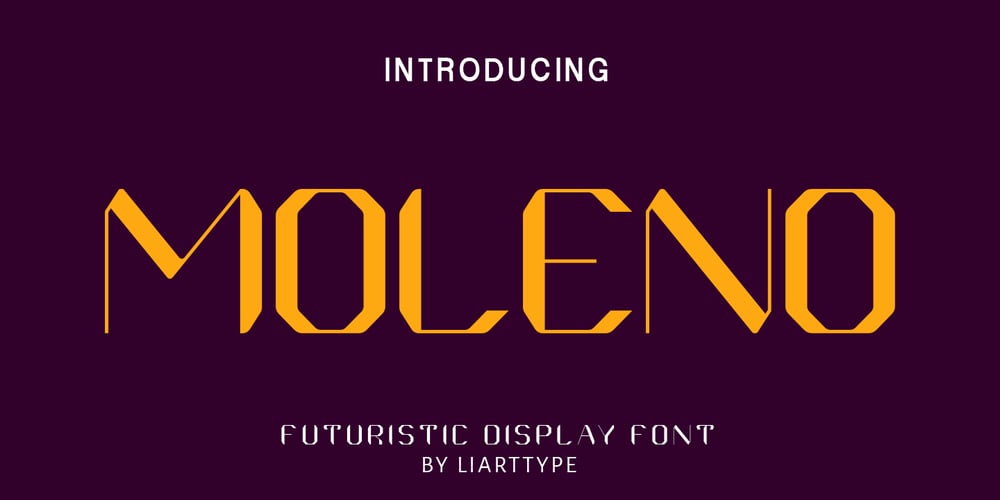
Moleno Font Family was designed by Ali Sifak Muftari and published by Liartgraphic. Moleno contains 1 styles and family package options. Meet our newest product, we call this product Moleno font. Moleno font is a cute typeface font with a uniqe touch and assertive vetrolles font is very nice to use on:fashion magazine, logos, ,and photography, landing page, fliyer,What’s includes- Mutilngual support- alternate- ligature